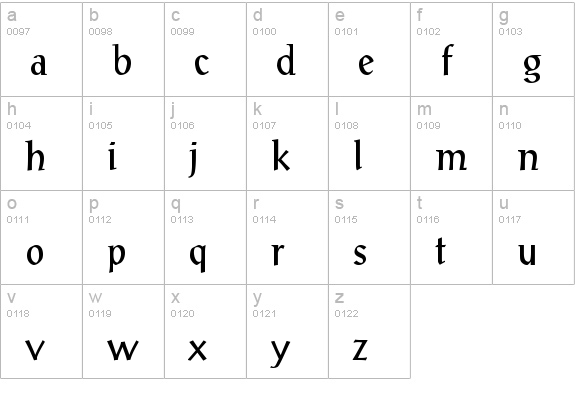
PostAntiqua Font Details
PostAntiqua is a timeless font that seamlessly blends elegance and sophistication. With its classic serifs and refined curves, this font exudes a sense of grace and refinement, making it the perfect choice for any project that requires a touch of timeless beauty. Inspired by the typography of the past, PostAntiqua brings a touch of nostalgia to your designs while remaining versatile and adaptable to modern aesthetics. Its clean lines and balanced proportions make it highly readable, ensuring that your message will be conveyed with clarity and professionalism. One of the most remarkable aspects of PostAntiqua is that it is freely available to download at FontsMarket.com. This means that you can easily access this stunning font without any cost, allowing you to bring a touch of elegance to your projects without breaking the bank. Whether you're working on a logo, a website, a magazine layout, or any other creative endeavor, PostAntiqua is a font that will elevate your design to new heights. Its timeless appeal and versatility make it suitable for a wide range of applications, from formal invitations to corporate branding. With PostAntiqua, you can add a touch of sophistication and refinement to your designs without compromising on readability or style. So why wait? Download PostAntiqua today from FontsMarket.com and unlock the potential of this stunning font to bring your creative visions to life.